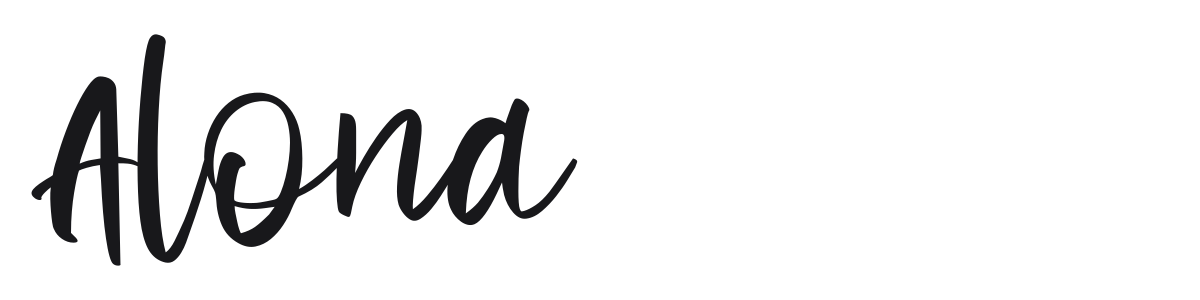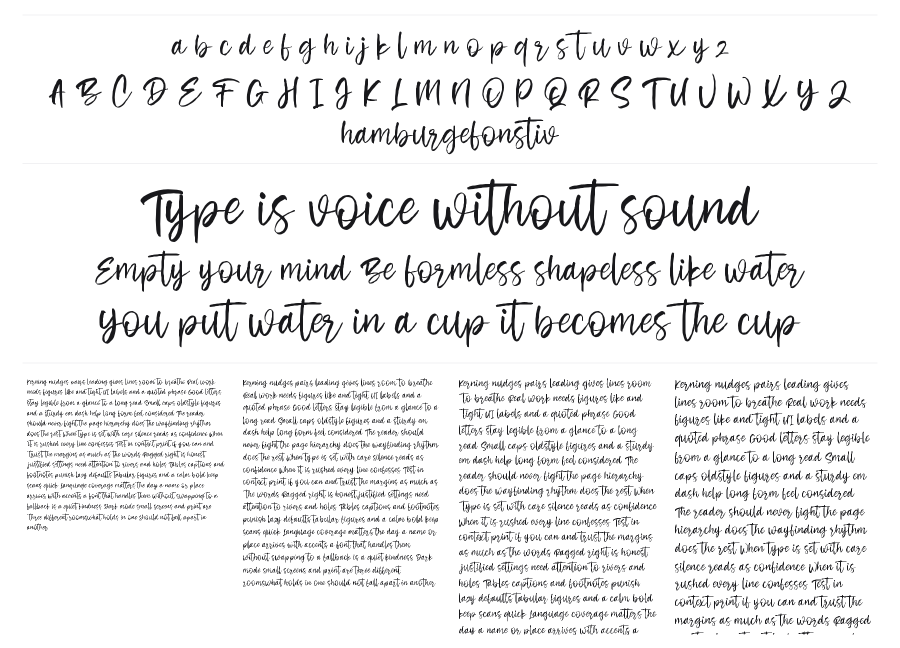
Alona
Alona is a casual connected script with a relaxed calligraphic feel and naturally bouncy baseline. The varying stroke contrast and interlocking ascenders and descenders give it an organic, hand-lettered quality without looking rough. It sits comfortably in branding, packaging, and any design that needs warmth without formality.